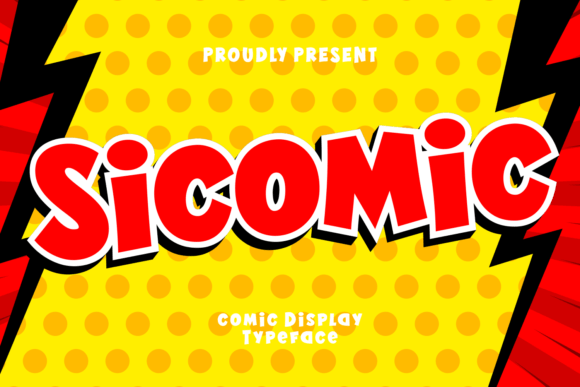
Journey into the realm of captivating comics and unleash your creativity with Sicomic, the font that transports you to the vibrant world of graphic novels and action-packed adventures. This playful and thick-lettered typeface is a visual masterpiece, meticulously crafted to ignite your imagination and leave a lasting impression on your audience.
With Sicomic, you hold the key to creating extraordinary titles that dance off the page, captivating covers that demand attention, and posters that ignite the senses. The bold strokes and dynamic curves of Sicomic infuse your designs with an infectious energy that draws readers into your story, making them eager to delve into the depths of your creative universe.
Express yourself with the boundless versatility of Sicomic, a font that effortlessly adapts to a myriad of design challenges. Whether you're crafting eye-catching logos that demand recognition, designing vibrant posters that electrify the atmosphere, or producing captivating flyers that spread your message like wildfire, Sicomic rises to the occasion, delivering exceptional results that leave your audience spellbound.
Unleash your inner artist and transform your designs into captivating masterpieces with Sicomic. Experience the thrill of creating comic book covers that transport readers to new worlds, magazine covers that spark curiosity and ignite imaginations, and fabric prints that burst with personality. Sicomic is your gateway to a world of endless creative possibilities, where your vision knows no bounds.
Don't settle for ordinary fonts that blend into the background. Embrace the extraordinary with Sicomic, the font that ignites passion, captivates imaginations, and leaves an indelible mark on the minds of your audience. Download Sicomic today and unlock the power to create designs that resonate, designs that inspire, and designs that leave a legacy of brilliance.